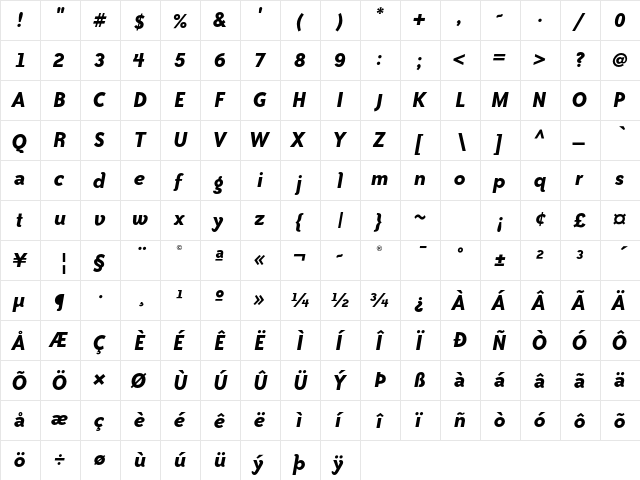
Bailey Sans ITC Std BoldItalic Font Preview
| Designer | Kevin Bailey |
Design Context for Bailey Sans ITC Std Typeface
Bailey Sans ITC Std takes a measured approach to typography — its balanced proportions and neutral character make it a reliable workhorse for both digital and print work. The dynamic lean of this cut emphasises speed and emphasis in any layout. The heavy weight commands attention and anchors typographic hierarchies.
Pro Tip: Use Bailey Sans ITC Std for emphasis, pull quotes, and subheadings where its slanted energy can add rhythm to the layout.